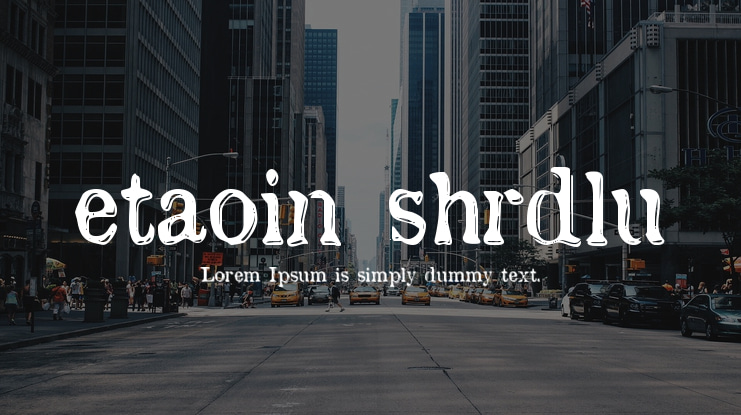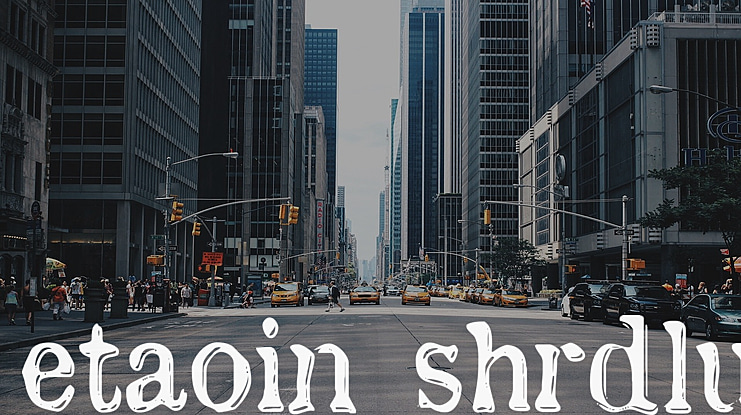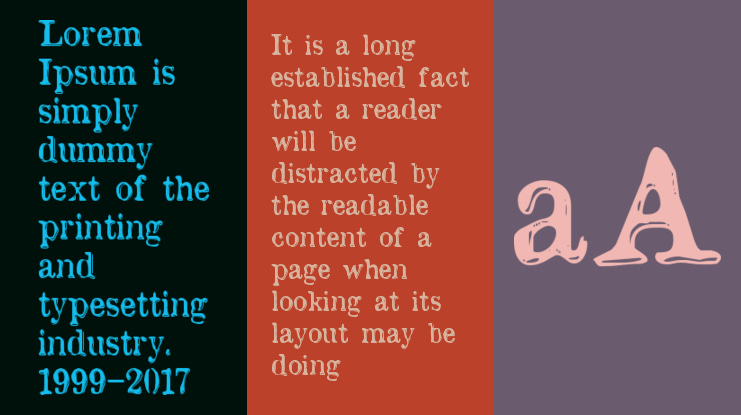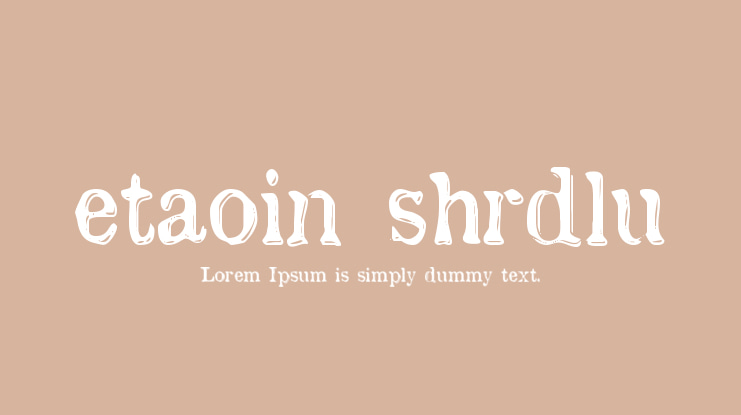
etaoin shrdlu Font
What is et.a.oin shrd.lu ? (et-ee-oin shurd-loo)
...the letters produced by running the finger down the first two vertical rows of keys at the left of the keyboard of a Linotype machine, used as a temporary marking slug but sometimes inadvertently cast and printed. They are also the twelve most used Latin glyphs in English, arranged in approximate order.